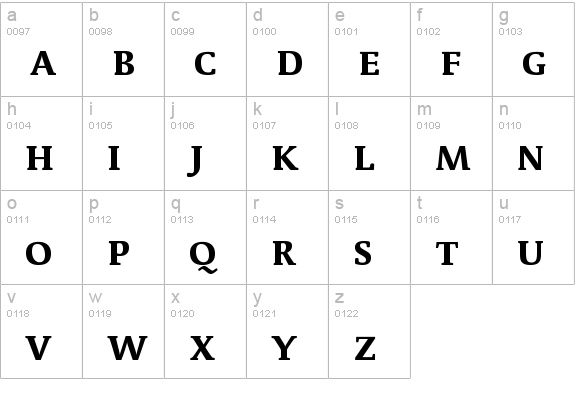
Parable-BoldSC Font Details
Parable-BoldSC is a captivating and versatile font that exudes a sense of boldness and confidence. With its sleek and modern design, this font effortlessly catches the eye and adds a touch of sophistication to any project. Designed with attention to detail, Parable-BoldSC features clean lines and sharp edges that make it perfect for headlines, titles, and logos. Its bold and strong appearance commands attention and leaves a lasting impression. One of the standout features of Parable-BoldSC is its versatility. Whether you're designing a poster, creating a website, or even crafting a business card, this font adapts seamlessly to various mediums and projects, making it a go-to choice for designers and creatives alike. But what truly sets Parable-BoldSC apart is that it is available for free. That's right, this stunning font can be freely downloaded at FontsMarket.com, allowing designers to access this high-quality typeface without any cost. By offering Parable-BoldSC for free, FontsMarket.com aims to support the creative community and provide them with an exceptional tool to bring their ideas to life. This generous offering allows designers to experiment, explore, and create without any limitations. So whether you're a professional designer, a student, or simply someone with a passion for typography, Parable-BoldSC is a must-have font in your collection. Download it for free at FontsMarket.com and unleash your creativity with this remarkable and captivating typeface.